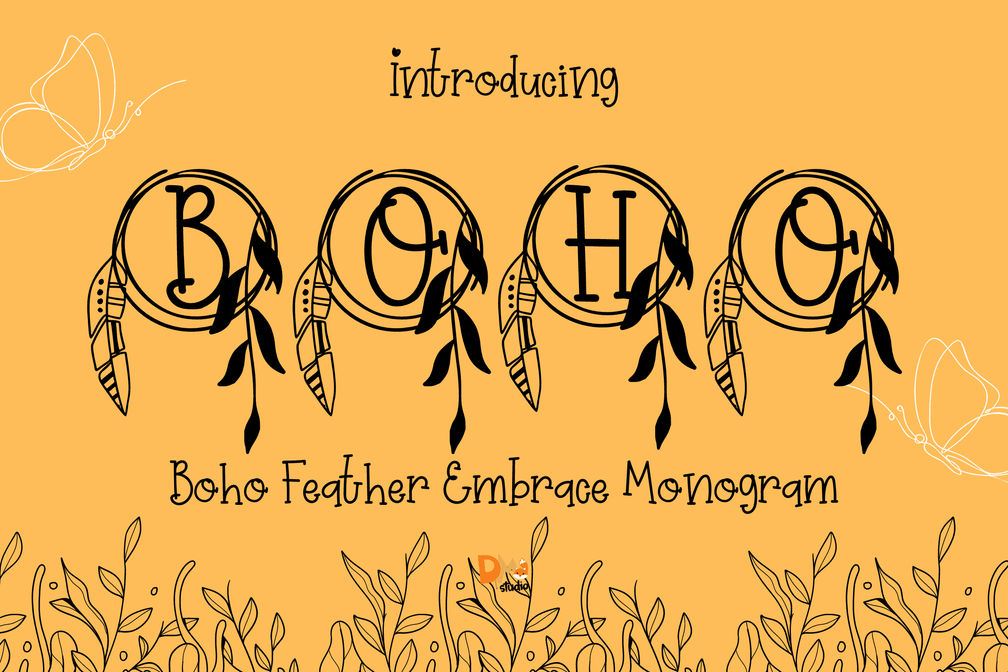
Boho Feather Embrace Monogram
Boho Feather Embrace Monogram – Hand-Drawn Serif Monogram Font with Embracing Feather Accents
Boho Feather Embrace Monogram is a delicate serif monogram font where each uppercase letter is lovingly encircled by hand-drawn bohemian feathers. Designed to evoke a sense of softness, nature, and spiritual calm, this font is ideal for wedding stationery, feminine branding, boho crafts, and soulful custom gifts.
Embracing Feather Design: Elegant feathers gently wrap around each letter, creating a feeling of protection and grace.
Bohemian Aesthetic: Free-spirited and earthy style perfect for boho-inspired projects.
Elegant Serif Structure: A timeless serif base ensures legibility with a refined finish.
Ideal For: Boho wedding decor, Cricut monograms, spiritual branding, personalized gifts, nature-themed packaging, and boutique logos.